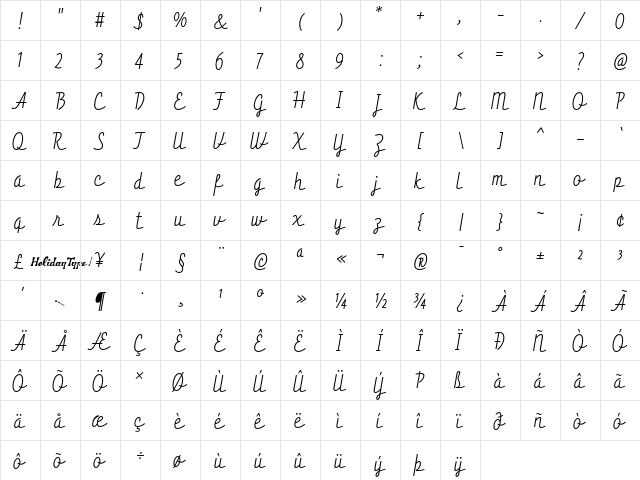
HT Orologiaio Regular
| Foundry | Ryoichi Tsunekawa |
| Designer | Ryoichi Tsunekawa |
Design Context for HT Orologiaio Typeface
HT Orologiaio takes a measured approach to typography — its balanced proportions and neutral character make it a reliable workhorse for both digital and print work.
Pro Tip: Pair HT Orologiaio with a font of contrasting weight or personality to build a more expressive typographic hierarchy.